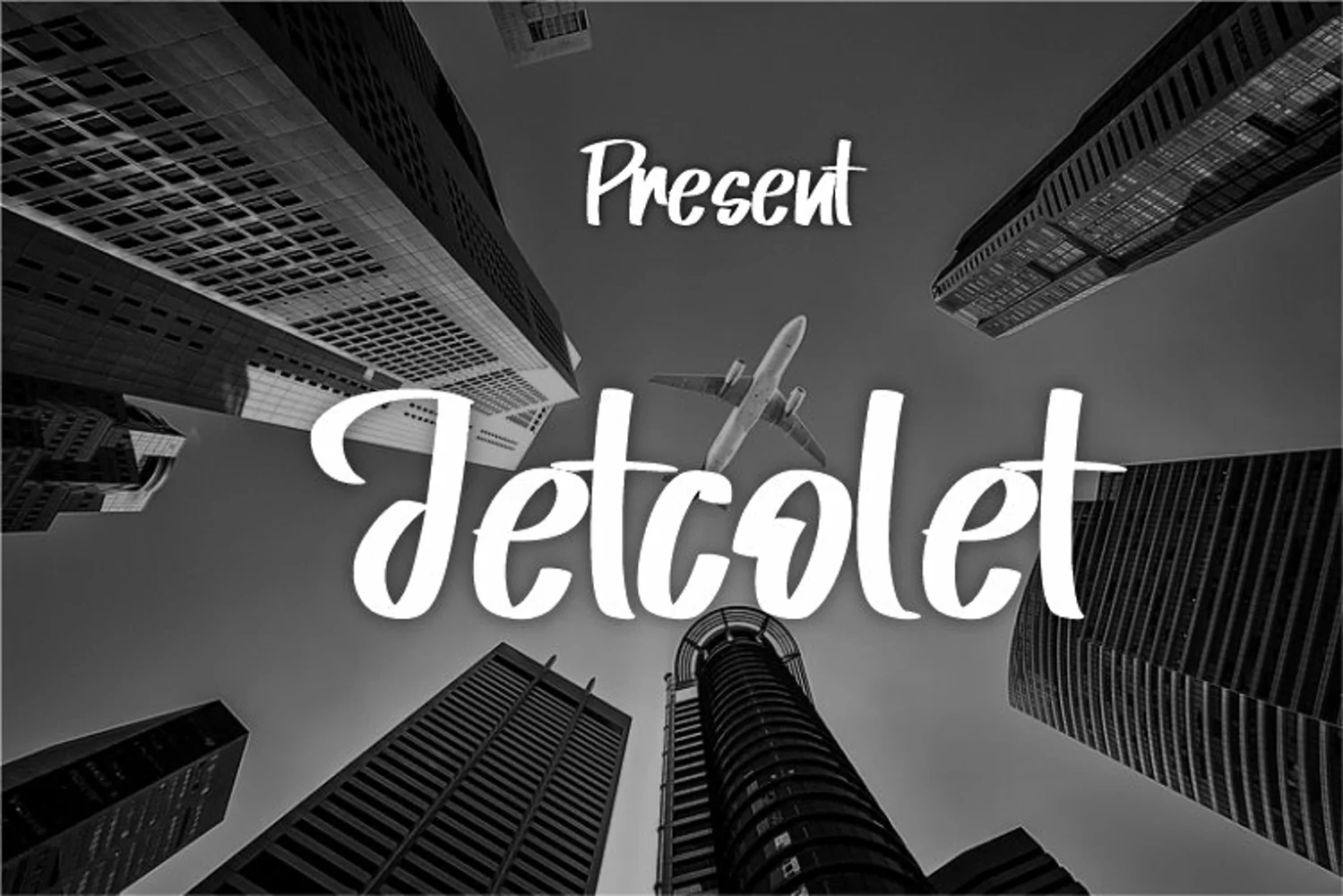
Jetcolet
Jetcolet is a script typeface that has a simple style & modern look.
This typeface is perfect for an elegant & luxurious logo, book or movie
design titles, fashion brands, magazines, clothing, fonts, quotes and more.